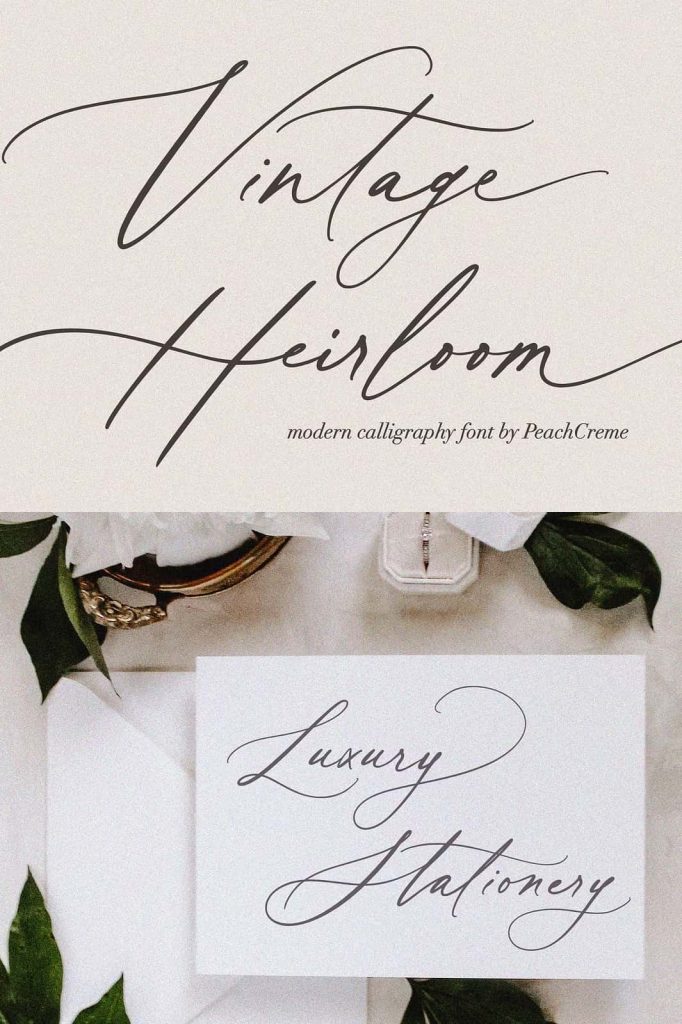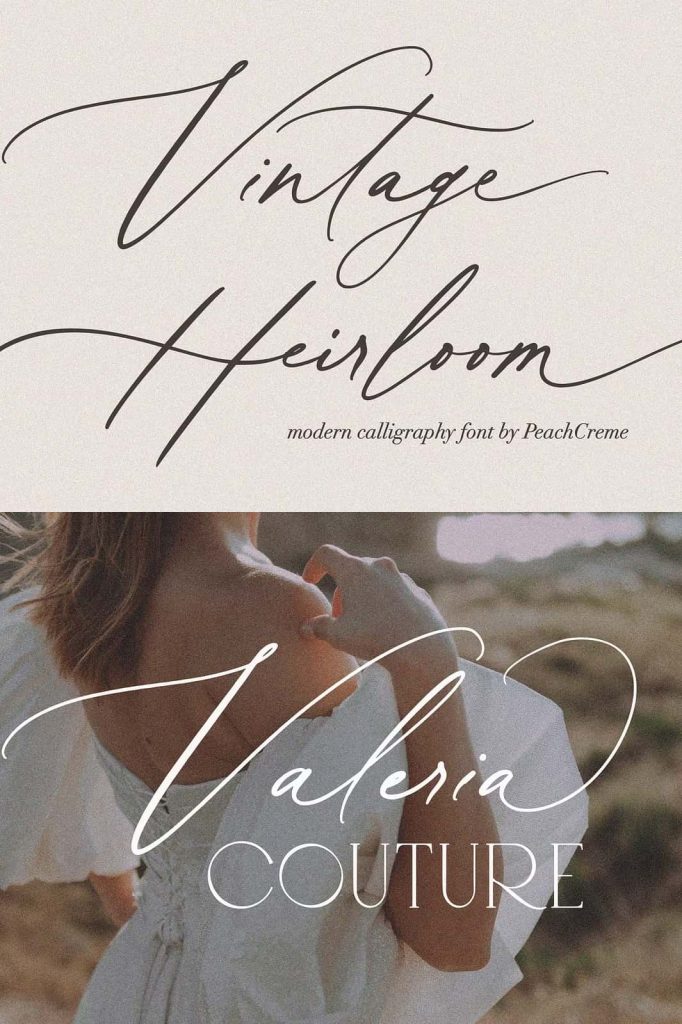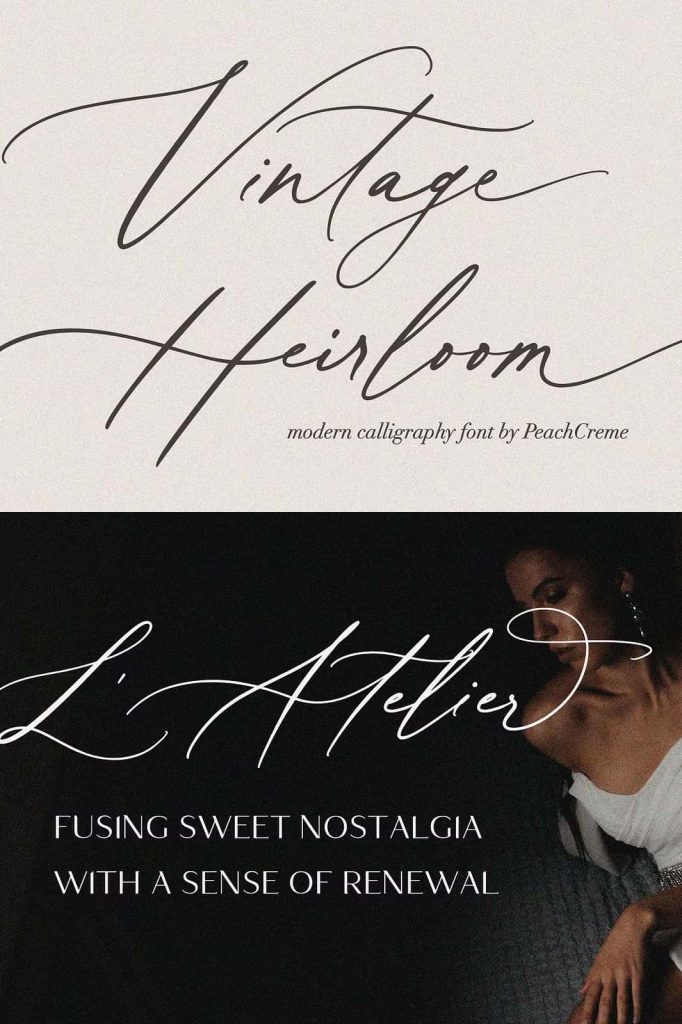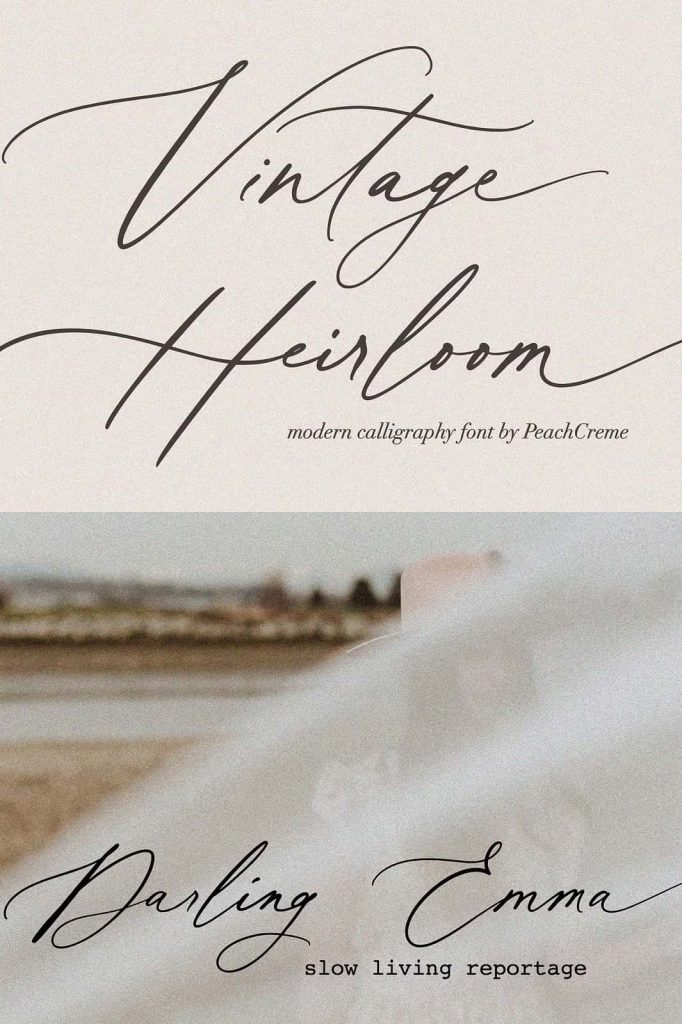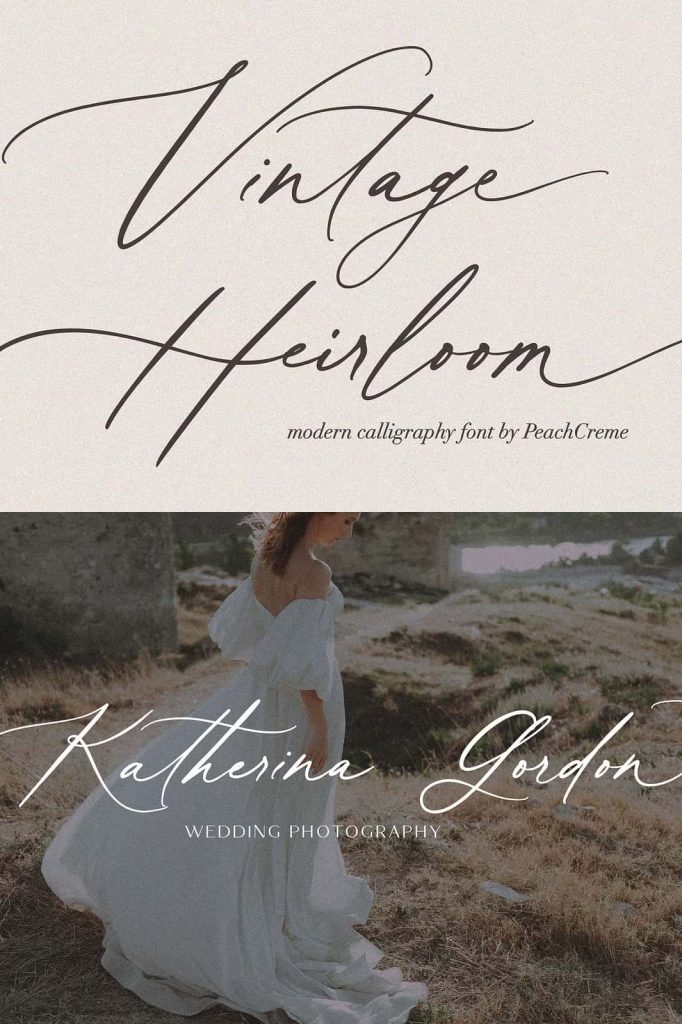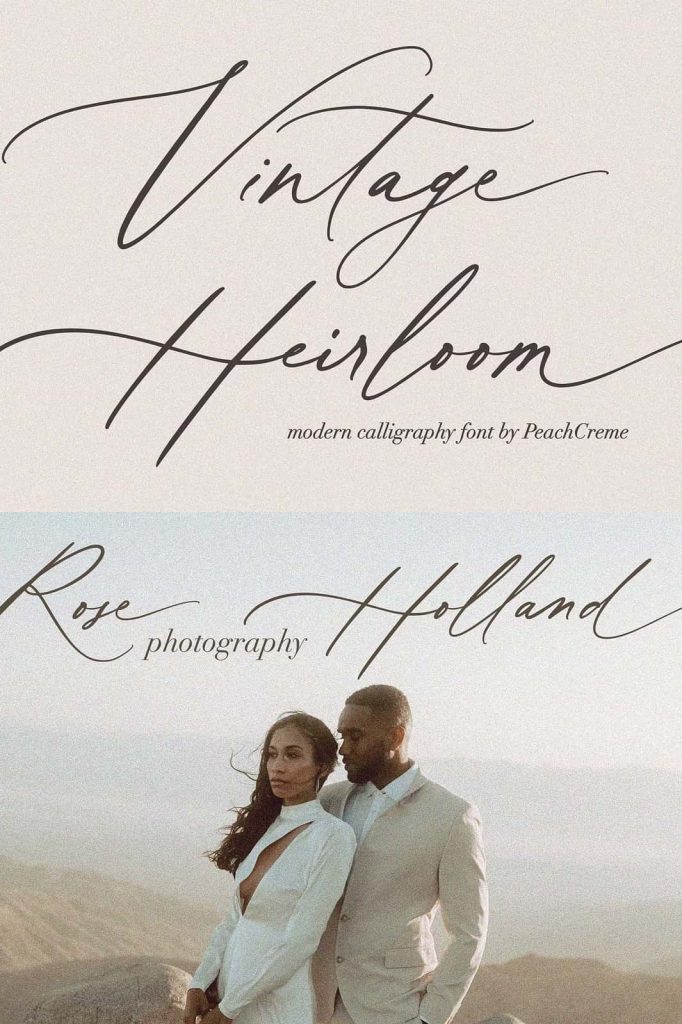
Vintage Heirloom // Calligraphy FontdezzignerApril 28, 2025Fonts Vintage Heirloom! A beautiful script for those who wish to enhance their designs with elegance and style. Download